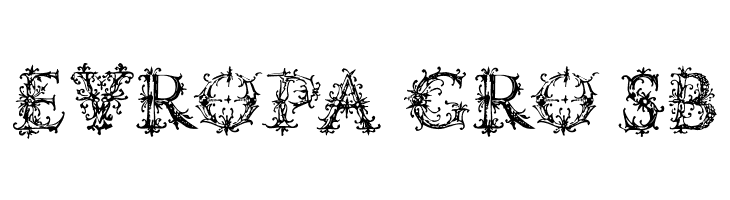
A bold, decorative serif font with ornate detailing and vintage flair.
An ornate, floral-themed decorative font with intricate details.
An ornate, calligraphic font with intricate swashes and flourishes.
An ornate and decorative font with high contrast and intricate design.
A bold, decorative font with thick strokes and ornate detailing.
An ornate, decorative font with intricate floral embellishments.
An ornate and decorative font with intricate swirls and embellishments.
Ornate, decorative initials with intricate borders, ideal for elegant designs.
An ornate, decorative font with intricate swirls and embellishments.